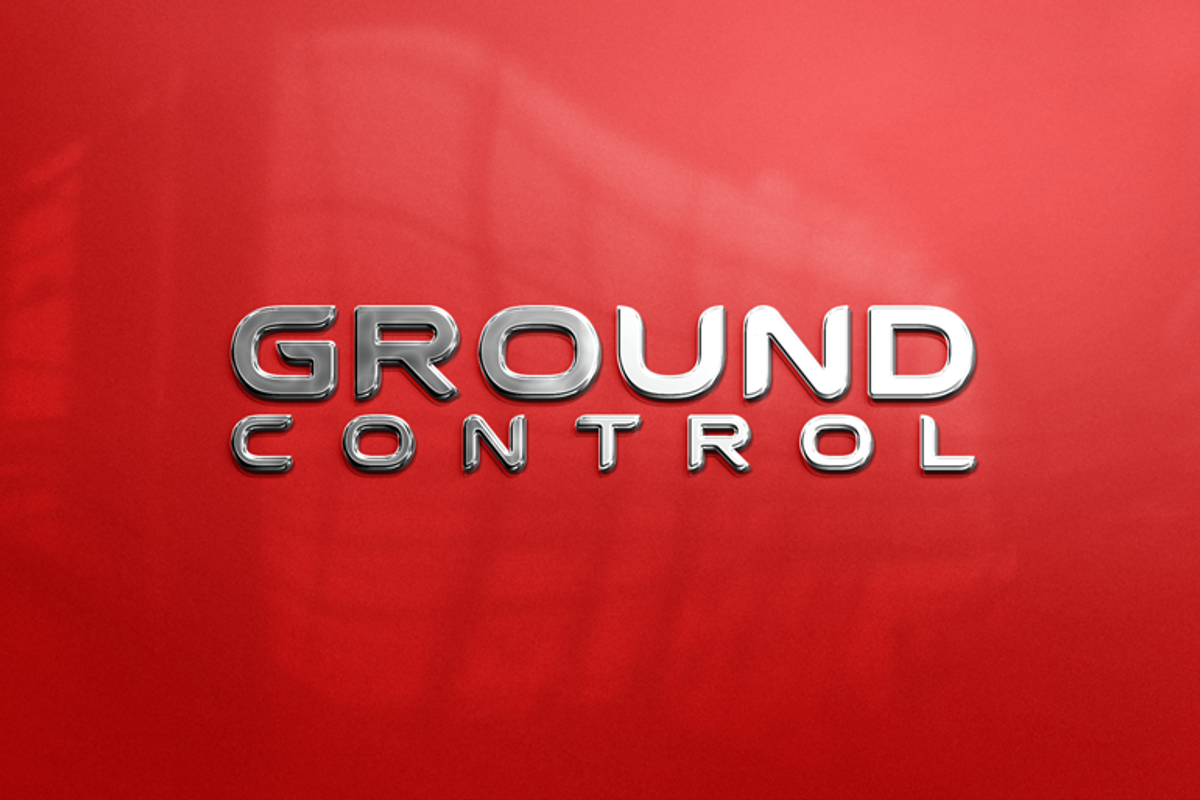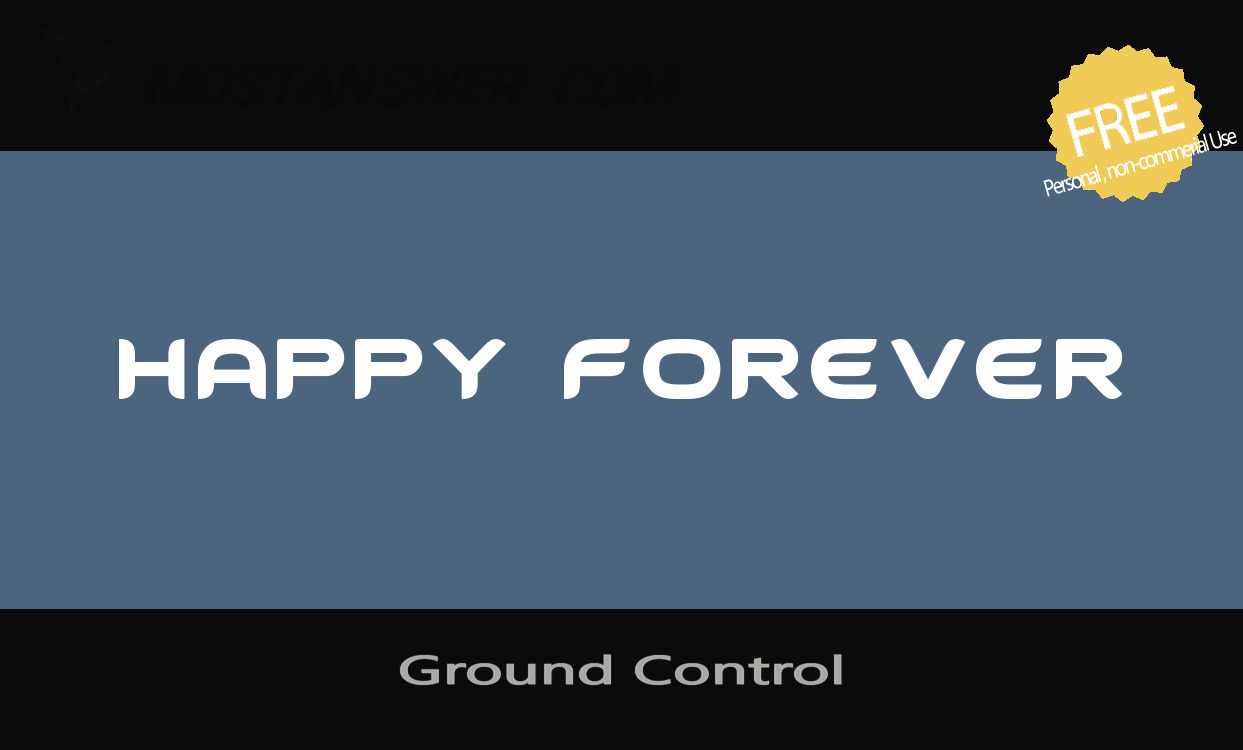
Ground Control Font . Ground control font family designed by henriavecunk has a total of 1 different styles. Ground control regular font by down fonts. If your kind enough to donate $5 or more. 71,401 downloads (7 yesterday) free for personal use. You can download the ground control font to. Ground control is a futuristic and versatile display font designed by sora sagano. The ground control regular font contains 162 beautifully designed characters. Ground control font — created in 2016 by henriavecunk. ️ customize your own preview on ffonts.net to make sure it`s the right one for your designs. This font features a mix of sharp lines and curves, creating a unique.
Ground control regular font by down fonts. 71,401 downloads (7 yesterday) free for personal use. If your kind enough to donate $5 or more. Ground control is a futuristic and versatile display font designed by sora sagano. ️ customize your own preview on ffonts.net to make sure it`s the right one for your designs. Ground control font family designed by henriavecunk has a total of 1 different styles. This font features a mix of sharp lines and curves, creating a unique. The ground control regular font contains 162 beautifully designed characters. Ground control font — created in 2016 by henriavecunk. You can download the ground control font to.
Ground Control Font Ground control is a futuristic and versatile display font designed by sora sagano. ️ customize your own preview on ffonts.net to make sure it`s the right one for your designs. You can download the ground control font to. The ground control regular font contains 162 beautifully designed characters. This font features a mix of sharp lines and curves, creating a unique. Ground control regular font by down fonts. 71,401 downloads (7 yesterday) free for personal use. Ground control font family designed by henriavecunk has a total of 1 different styles. Ground control font — created in 2016 by henriavecunk. Ground control is a futuristic and versatile display font designed by sora sagano. If your kind enough to donate $5 or more.
Girth Control Font FontYukle Ground Control Font Ground control regular font by down fonts. ️ customize your own preview on ffonts.net to make sure it`s the right one for your designs. If your kind enough to donate $5 or more. Ground control font family designed by henriavecunk has a total of 1 different styles. This font features a mix of sharp lines and curves, creating a unique.. Ground Control Font.
Ground Control Font HENRIavecunK FontSpace Ground Control Font Ground control regular font by down fonts. This font features a mix of sharp lines and curves, creating a unique. Ground control font family designed by henriavecunk has a total of 1 different styles. Ground control is a futuristic and versatile display font designed by sora sagano. If your kind enough to donate $5 or more. The ground control regular. Ground Control Font.
Fuel Control Font 1001 Free Fonts Ground Control Font 71,401 downloads (7 yesterday) free for personal use. ️ customize your own preview on ffonts.net to make sure it`s the right one for your designs. If your kind enough to donate $5 or more. The ground control regular font contains 162 beautifully designed characters. Ground control regular font by down fonts. Ground control font — created in 2016 by henriavecunk.. Ground Control Font.
Varsity Black TTF Font Ttf Fonts, Lettering Fonts, Sports Fonts Ground Control Font Ground control font family designed by henriavecunk has a total of 1 different styles. Ground control is a futuristic and versatile display font designed by sora sagano. ️ customize your own preview on ffonts.net to make sure it`s the right one for your designs. If your kind enough to donate $5 or more. You can download the ground control font. Ground Control Font.
Ground Control Font You can download the ground control font to. ️ customize your own preview on ffonts.net to make sure it`s the right one for your designs. 71,401 downloads (7 yesterday) free for personal use. The ground control regular font contains 162 beautifully designed characters. If your kind enough to donate $5 or more. Ground control font family designed by henriavecunk has. Ground Control Font.
ground control logo Ground Control Font The ground control regular font contains 162 beautifully designed characters. Ground control font family designed by henriavecunk has a total of 1 different styles. This font features a mix of sharp lines and curves, creating a unique. You can download the ground control font to. 71,401 downloads (7 yesterday) free for personal use. If your kind enough to donate $5. Ground Control Font.
Rubintek Font All Free Fonts Ground Control Font Ground control font family designed by henriavecunk has a total of 1 different styles. The ground control regular font contains 162 beautifully designed characters. This font features a mix of sharp lines and curves, creating a unique. If your kind enough to donate $5 or more. ️ customize your own preview on ffonts.net to make sure it`s the right one. Ground Control Font.
Download Fresh Waters By Xerographer Fonts Free Font Ground Control Font ️ customize your own preview on ffonts.net to make sure it`s the right one for your designs. You can download the ground control font to. This font features a mix of sharp lines and curves, creating a unique. Ground control font — created in 2016 by henriavecunk. If your kind enough to donate $5 or more. Ground control regular font. Ground Control Font.
Control Font » Free Download Vector Stock Image Icon Ground Control Font If your kind enough to donate $5 or more. Ground control font — created in 2016 by henriavecunk. You can download the ground control font to. Ground control font family designed by henriavecunk has a total of 1 different styles. 71,401 downloads (7 yesterday) free for personal use. The ground control regular font contains 162 beautifully designed characters. This font. Ground Control Font.